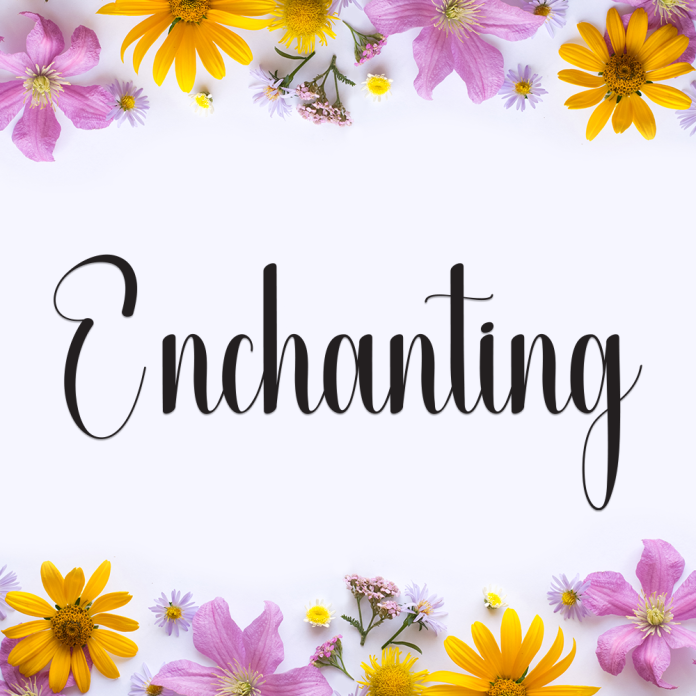
Enchanting is an elegant and captivating handwriting font, featuring gentle strokes that resemble beautiful penmanship on invitations or love letters. Each letter is crafted with a smooth flow, creating a romantic and enchanting impression.
Elegant and refined handwriting style
Perfect for wedding invitations, luxury branding, and aesthetic quotes
Neatly designed letters that still maintain a natural feel